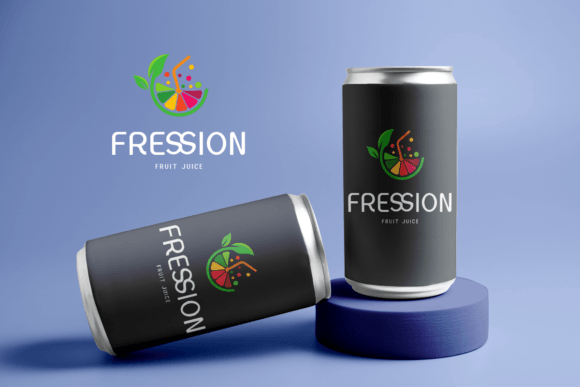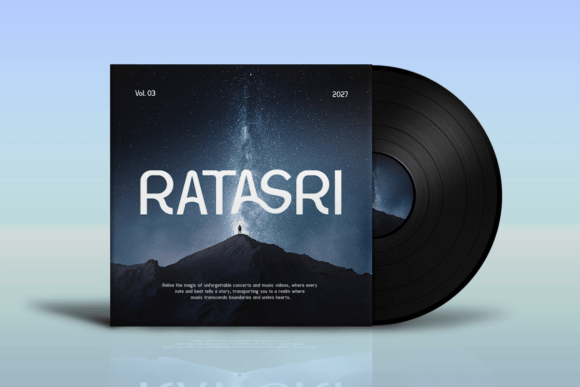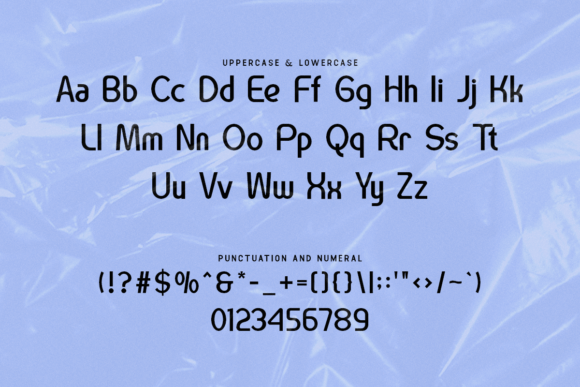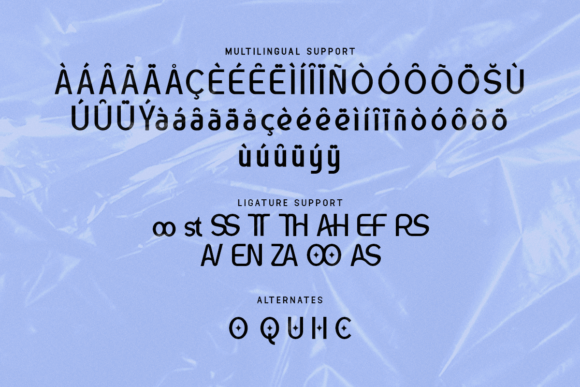
Introducing Avensio Font: Elevate Your Designs with Elegance and Clarity
In the world of typography, a font can make or break a design. It’s the foundation upon which your creative project is built, and choosing the right one can be a daunting task. That’s why we’re excited to introduce Avensio, a versatile and modern typeface designed to bring elegance and clarity to your creative projects. Avensio combines clean lines with a contemporary style, making it perfect for a wide range of applications from branding and logos to website headers and editorial design.
A Modern Typeface for the Discerning Designer
Avensio is more than just a font – it’s a statement piece. Its minimalist aesthetic makes it an ideal choice for designers looking to make a bold yet sophisticated statement. With its clean lines and contemporary style, Avensio is perfect for designers who want to add a touch of elegance to their work. Whether you’re designing a logo, creating a website, or working on a editorial project, Avensio is the perfect choice.
Key Features of Avensio Font
- Versatility: Avensio is designed to be versatile, making it perfect for a wide range of applications, from branding and logos to website headers and editorial design.
- Modern Style: Avensio combines clean lines with a contemporary style, giving it a fresh and modern look.
- Ease of Readability: Avensio is easy to read, making it perfect for both print and digital formats.
- PUA Encoding: Avensio is PUA encoded, which means you can access all of the cute glyphs and swashes with ease!
Why Choose Avensio Font?
So why choose Avensio font for your next project? Here are just a few reasons:
- Elegance: Avensio brings a touch of elegance to any design, making it perfect for projects where sophistication is key.
- Clarity: Avensio’s clean lines and modern style make it easy to read, even at small sizes.
- Flexibility: Avensio is designed to be flexible, making it perfect for a wide range of applications.
- Unique Glyphs and Swashes: Avensio’s PUA encoding means you can access a wide range of unique glyphs and swashes, giving you even more creative freedom.
Applications for Avensio Font
Avensio font is perfect for a wide range of applications, including:
- Branding and Logos: Avensio’s modern style and elegance make it perfect for branding and logos.
- Website Headers: Avensio’s clean lines and readability make it perfect for website headers.
- Editorial Design: Avensio’s sophistication and elegance make it perfect for editorial design, including magazines, newspapers, and books.
- Print and Digital Formats: Avensio is designed to be flexible, making it perfect for both print and digital formats.
In conclusion, Avensio font is a versatile and modern typeface that’s perfect for designers looking to add a touch of elegance and clarity to their creative projects. With its clean lines, contemporary style, and ease of readability, Avensio is perfect for a wide range of applications, from branding and logos to website headers and editorial design. And with its PUA encoding, you can access a wide range of unique glyphs and swashes, giving you even more creative freedom. So why wait? Try Avensio font today and elevate your designs to the next level!
Whether you’re a seasoned designer or just starting out, Avensio font is a valuable addition to any font library. Its flexibility, elegance, and readability make it the perfect choice for any project. So go ahead, get creative, and see what Avensio font can do for you!